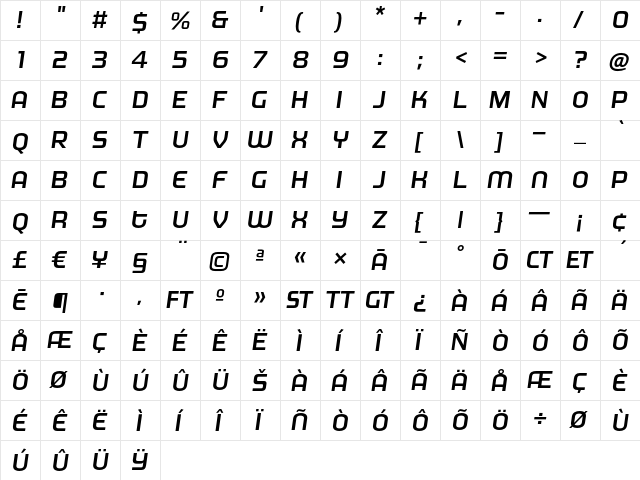
MorganBig MediumItalic Font Preview
MorganBig MediumItalic
Design Context for MorganBig Typeface
MorganBig is a composed and adaptable typeface that performs quietly and consistently across a wide range of design contexts. The dynamic lean of this cut emphasises speed and emphasis in any layout.
Pro Tip: Use MorganBig for emphasis, pull quotes, and subheadings where its slanted energy can add rhythm to the layout.